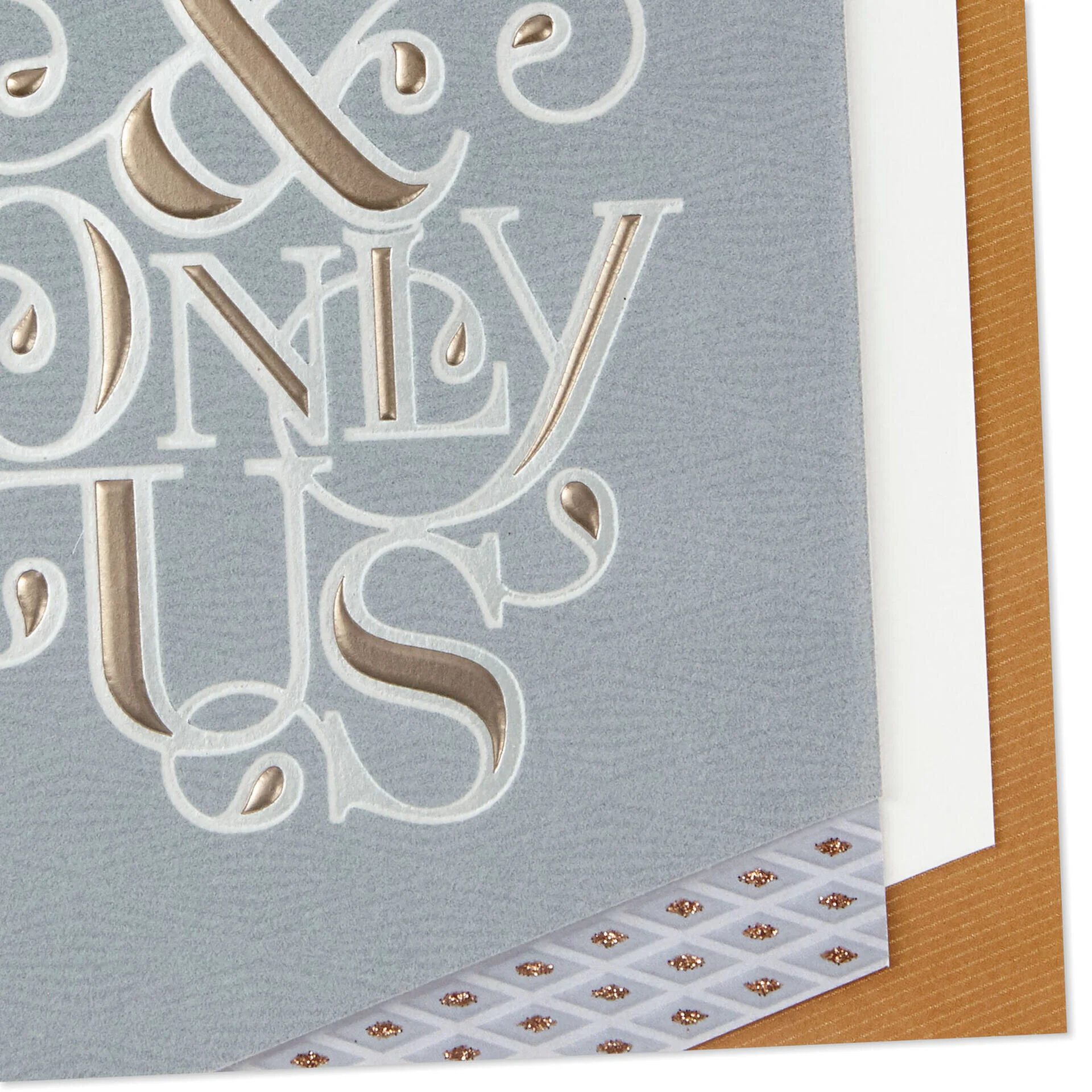
August 2nd was #NationalSistersDay and I loved getting the chance to letter this social post for Hallmark! Written by my talented friend Meghan Craig, it really describes sisters so perfectly. Enjoy!
Sister Lettering for Hallmark Signature
Sometimes one of the best parts of my job is discovering my work used on product which is a total surprise! In this case I saw my mono-weight script used on this BEAUTIFUL Hallmark Signature card. You know I have two sisters so I’m ordering a few to save for some future birthday celebrations. Enjoy!
Anniversary Card for Hallmark
Because we just celebrated our fifth anniversary it seemed like the perfect time to share this anniversary lettering for Hallmark. I love all the process details the designer added – the foil and emboss add so much texture and dimension. Enjoy!